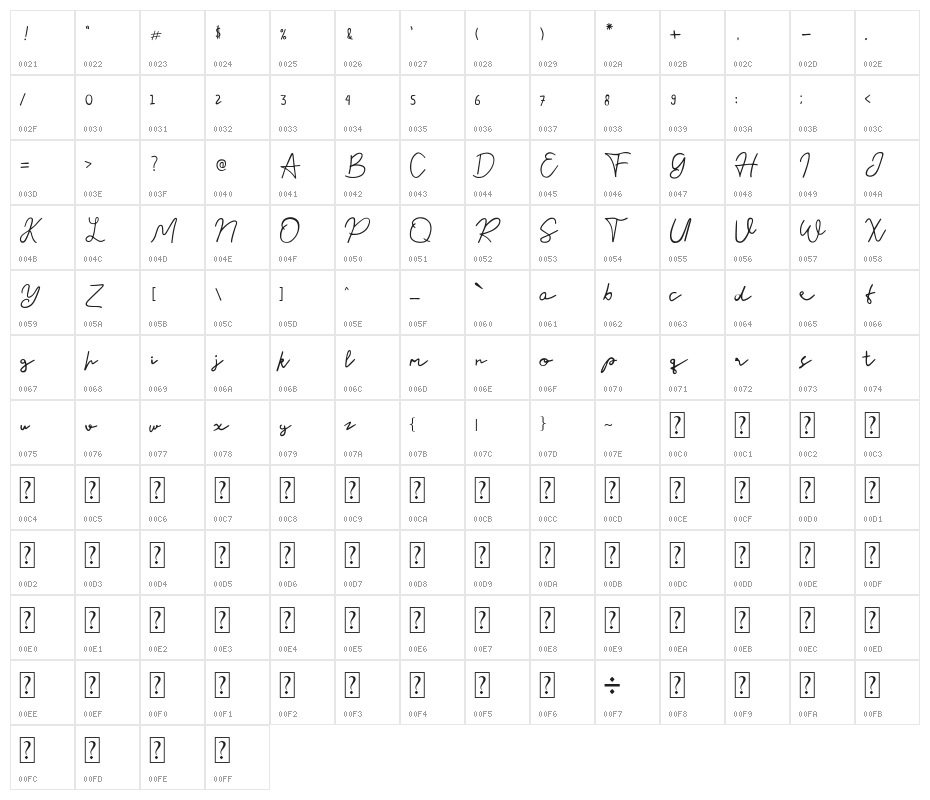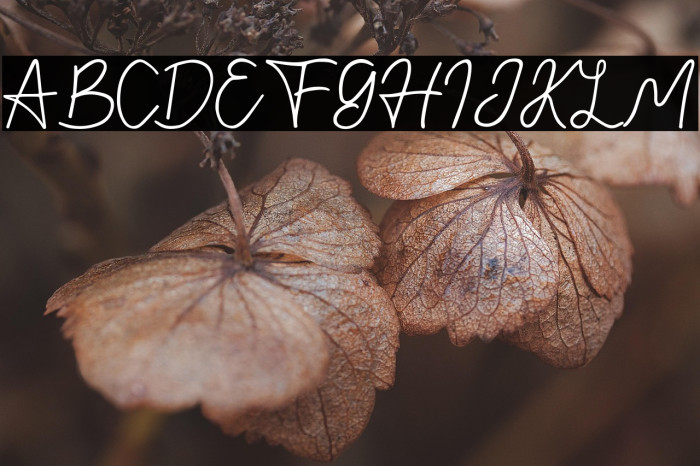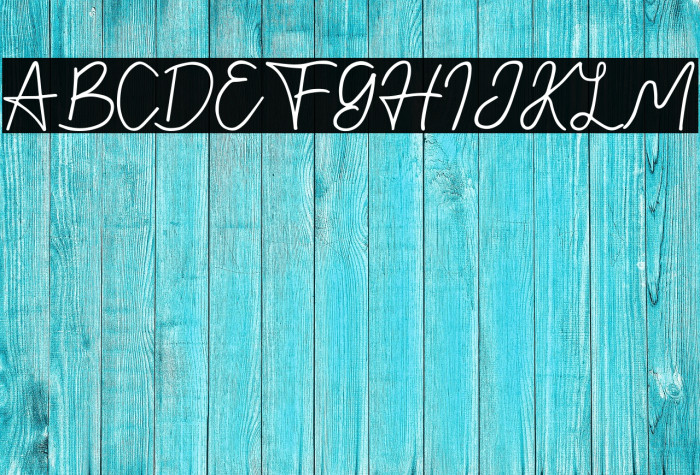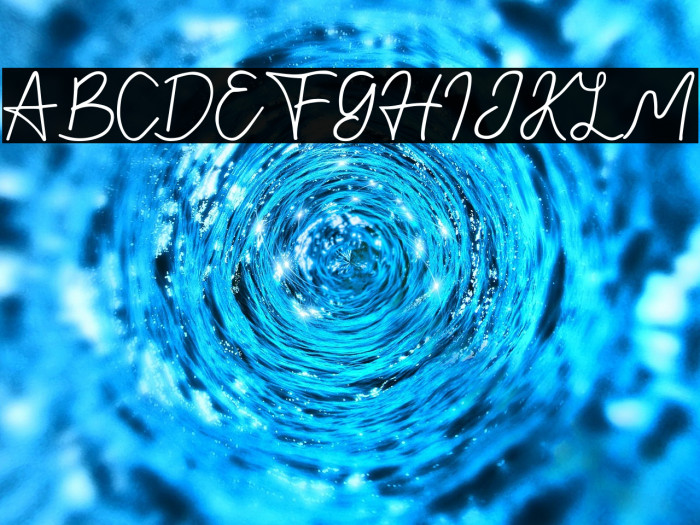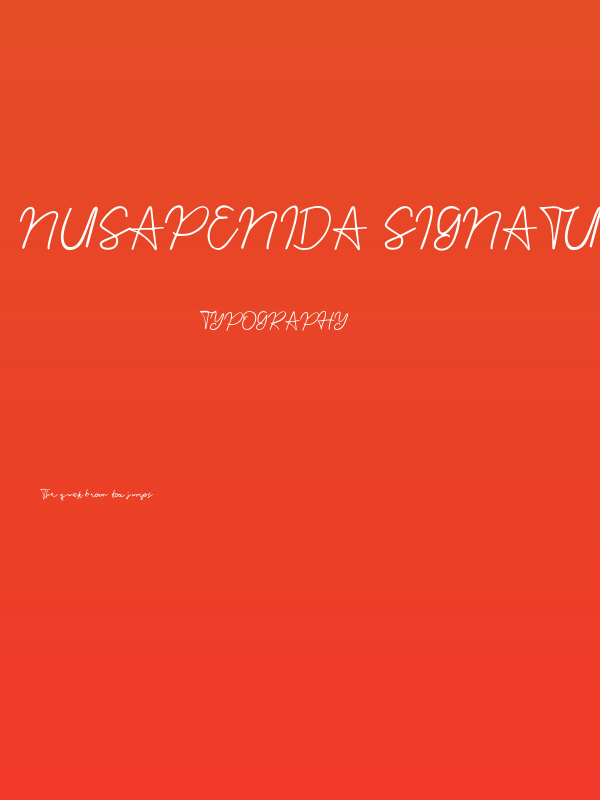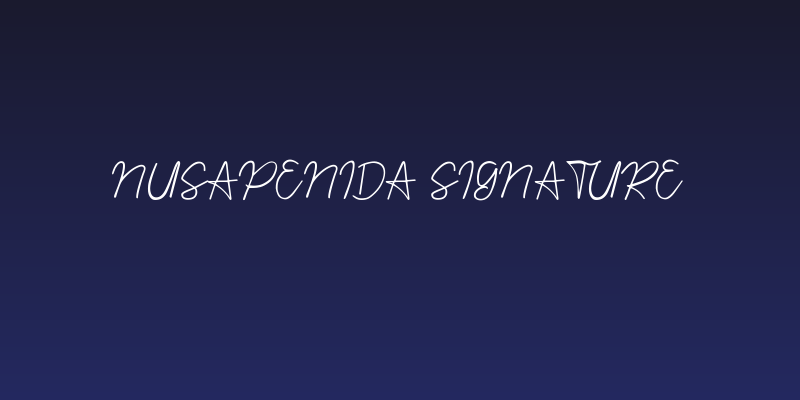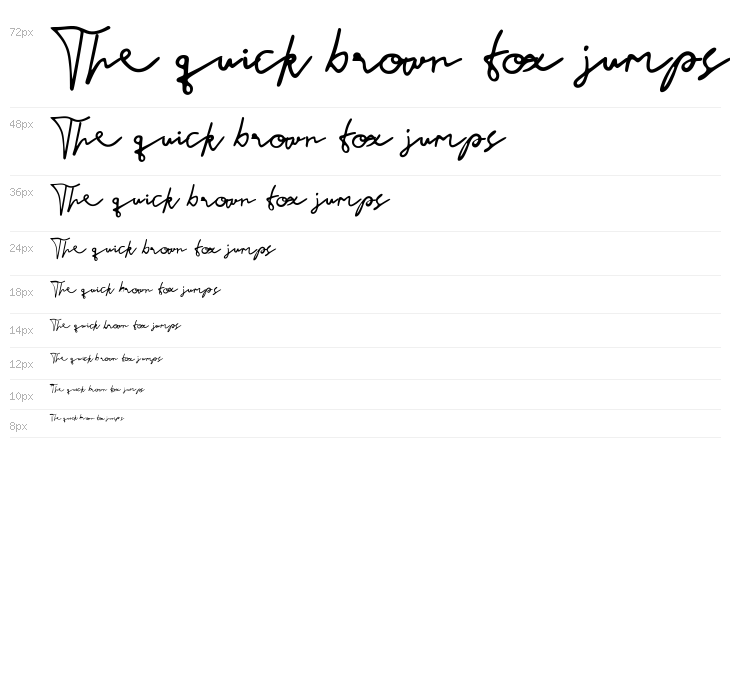
Nusapenida Signature Font
Nusapenida Signature Description
A flowing, cursive script font with a handwritten style, featuring smooth, connected strokes and a casual elegance.
| Overall Style | Casual, Elegant |
| Use Case | Logos, Signatures, Decorative text |
| Proposed Projects | Invitations, greeting cards, personal branding. |